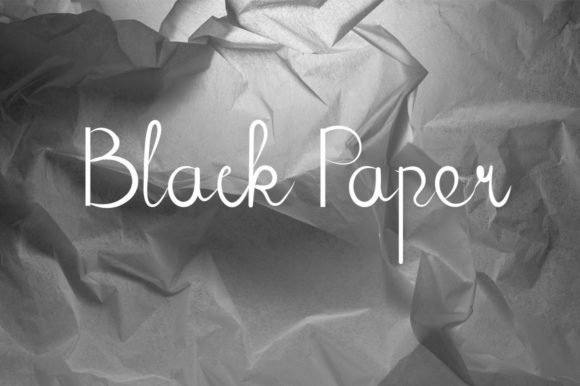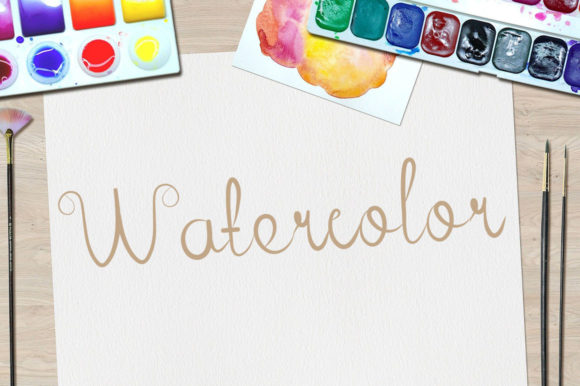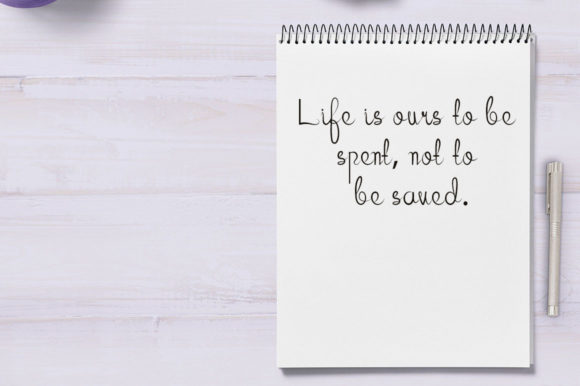
Introduction to Paper Stikers Font
Paper Stikers is a sweet and cursive handwritten font.
This gentle font will look gorgeous on a variety of design ideas It will add a joyful and romantic touch to each of your projects.